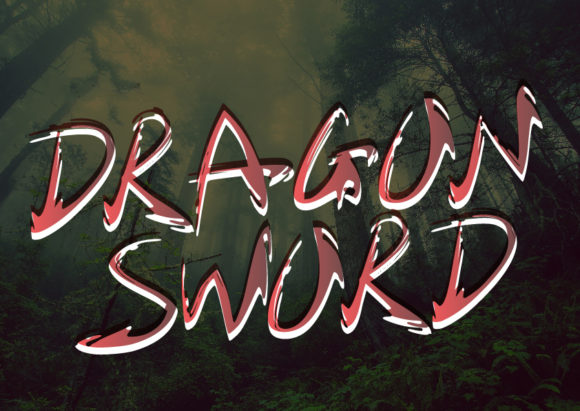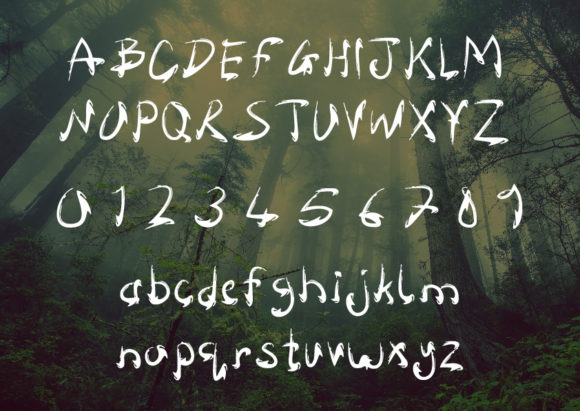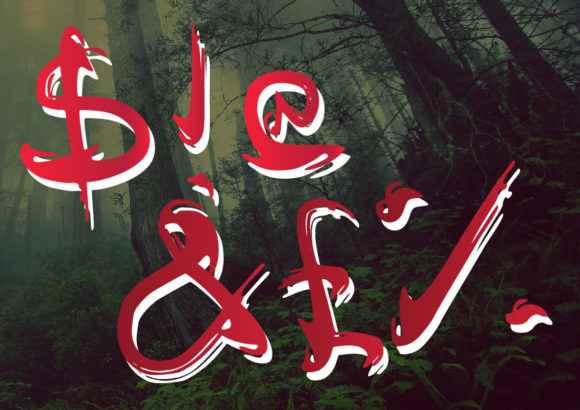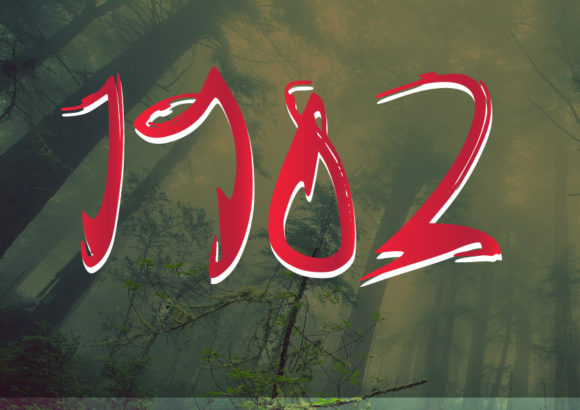
Dragon Sword Font
Dragon Sword is a fantasy-inspired script font with bold sword-like swashes. Use it to add some sorcery and sword flavour to your designs!